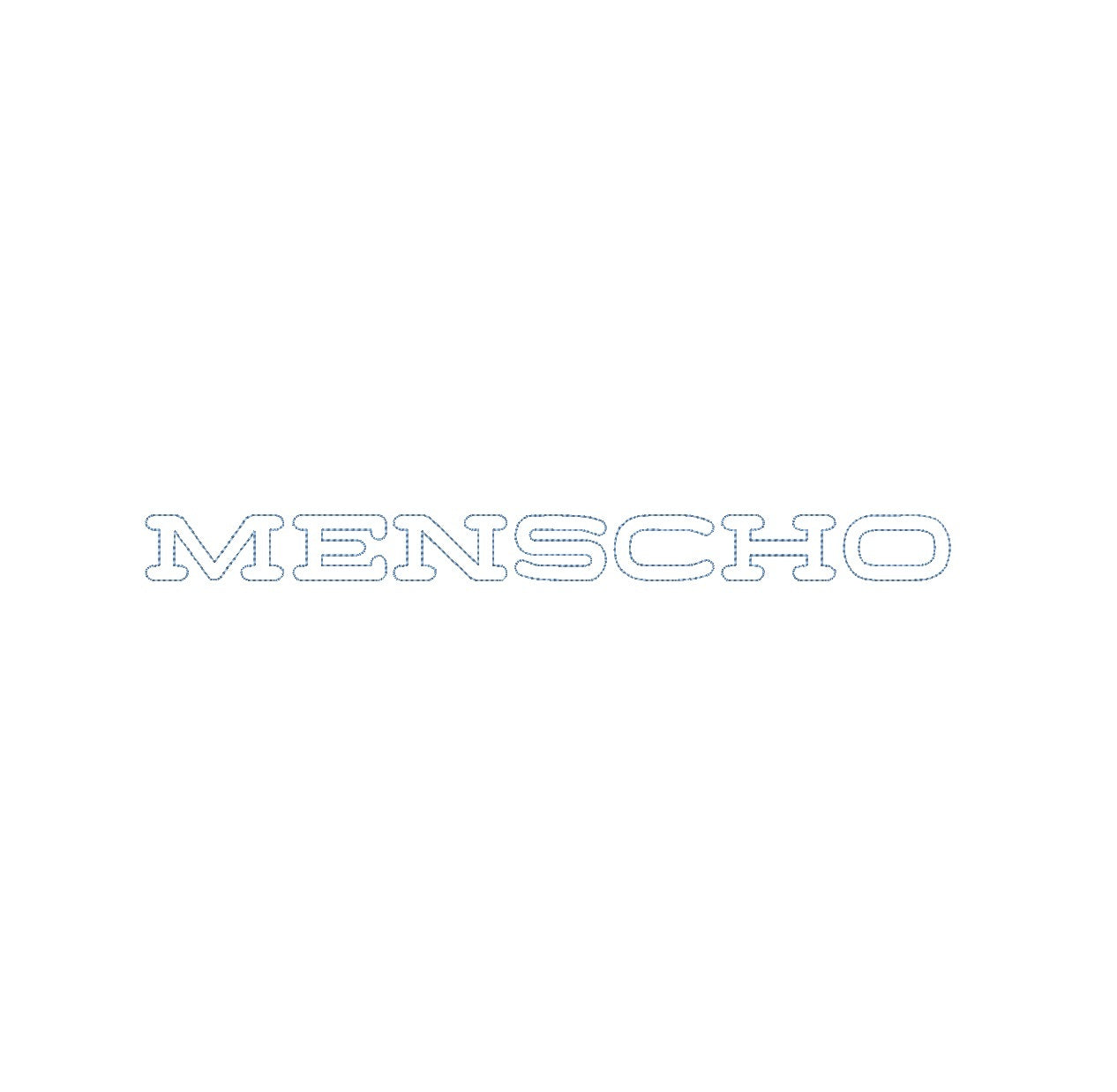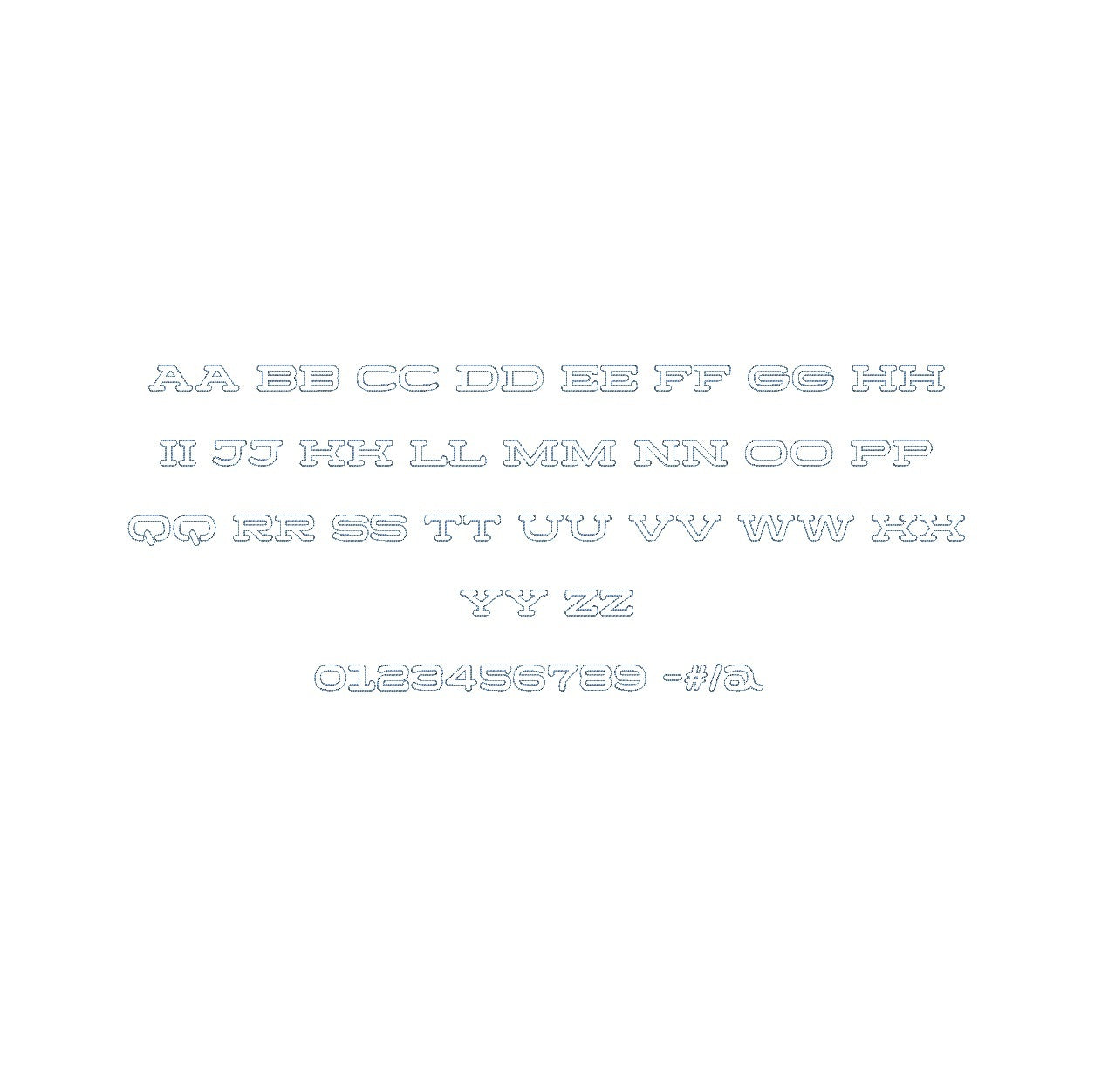
Introducing the Menscho Bean Outline ESA font, expertly tailored for Wilcom Studio e4.5.6 and Hatch 3 versions and above. Elevate your embroidery projects with this exceptional font that seamlessly marries modern aesthetics and timeless elegance. Crafted with precision, the Menscho font adds a distinctive touch to your designs, be it monogramming, embellishments, or personalized creations. Experience flawless integration, smooth stitching, and unmatched quality. Elevate your embroidery game today with the Menscho Bean Outline ESA font, a must-have for both Wilcom Studio and Hatch users. Unleash boundless creativity and transform your designs effortlessly.